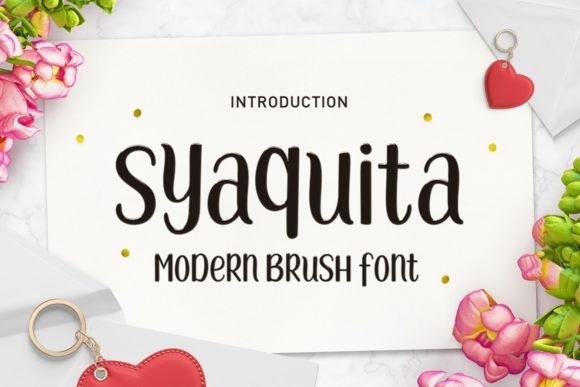
Immerse yourself in the captivating world of Syaquita Font, a remarkable sans serif masterpiece that will elevate your creations to unparalleled heights. This exquisite font family is meticulously crafted to embody the essence of modern elegance, offering a captivating blend of style and authenticity.
Syaquita Font is renowned as the ideal choice for book titles, its graceful curves and captivating presence drawing the reader's gaze from afar. The font's organic and stylish character lends a touch of sophistication to any publication, inviting the reader on an unforgettable literary journey.
Whether you're an aspiring author, a seasoned designer, or a creative entrepreneur, Syaquita Font empowers you to make a bold statement. Its versatility extends beyond book titles, seamlessly adapting to a myriad of applications, including stationery, fashion, logos, and merchandise.
Imagine your designs adorned with the captivating allure of Syaquita Font. Your logos will exude a timeless appeal, your fashion designs will radiate an effortless chic, and your marketing materials will captivate audiences with their undeniable charm.
Indulge in the limitless creative possibilities that Syaquita Font offers. Let its enchanting presence ignite your imagination and propel your creations to new heights of success. Embrace the allure of Syaquita Font and unlock a world of creative possibilities.